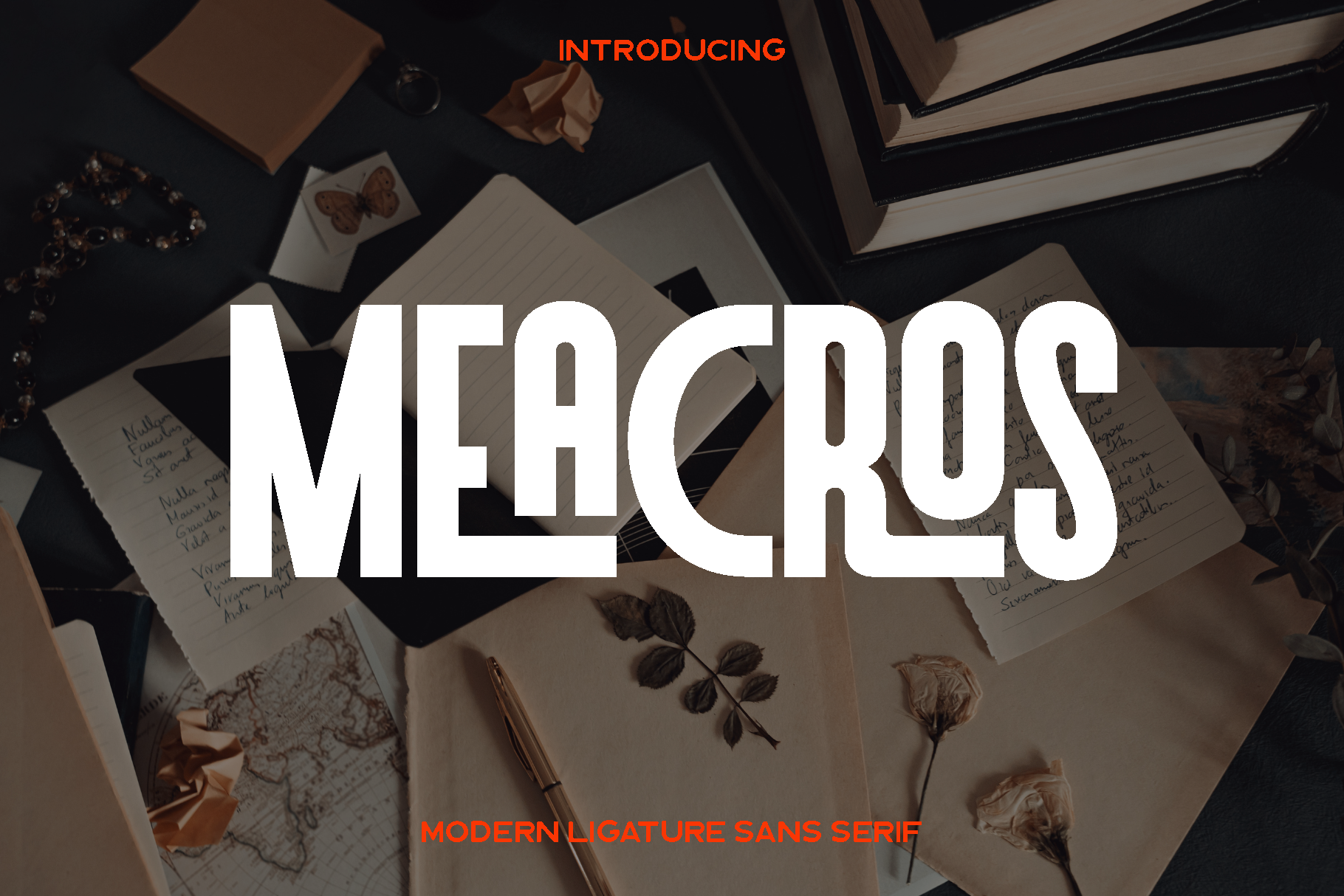
Meacros - Modern Font
Meacros is a versatile and expressive font designed to support a wide range of creative projects with clarity and style. Built with balance and functionality in mind, Meacros combines clean letterforms with subtle character, giving it a modern yet approachable feel. Its design focuses on readability while still offering enough personality to make your typography stand out across different visual contexts.
Meacros feels confident, practical, and creative, making it an excellent choice for books, magazines, logos, branding systems, photography overlays, quotes, blog headers, posters, and advertisements. Whether used in long form text or bold headlines, the font maintains consistency and visual harmony. Its adaptable nature allows it to shine in both professional layouts and expressive design work.
With alternates and ligatures included, Meacros gives designers flexibility to customize typography and create unique compositions. Multilingual support and functional characters make it suitable for global projects, while its clean structure ensures smooth performance in both print and digital use. Meacros is a reliable and stylish typeface that enhances storytelling and visual communication across countless applications.
Meacros Font Features:
• Uppercase and lowercase characters
• Numerals and functional glyphs
• Alternates and ligatures
• Multilingual support
• OpenType features